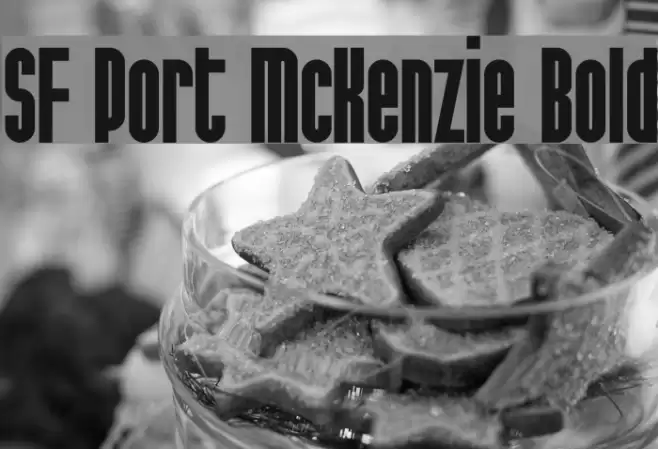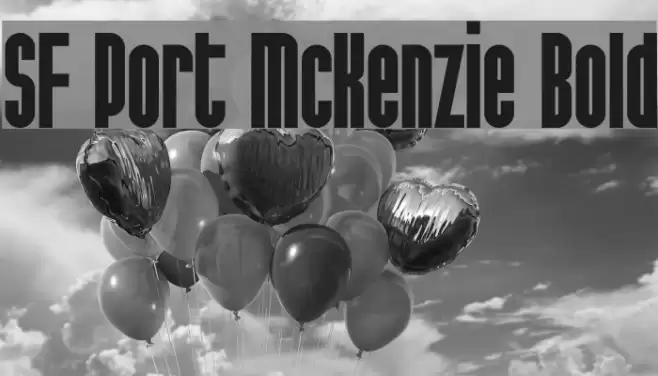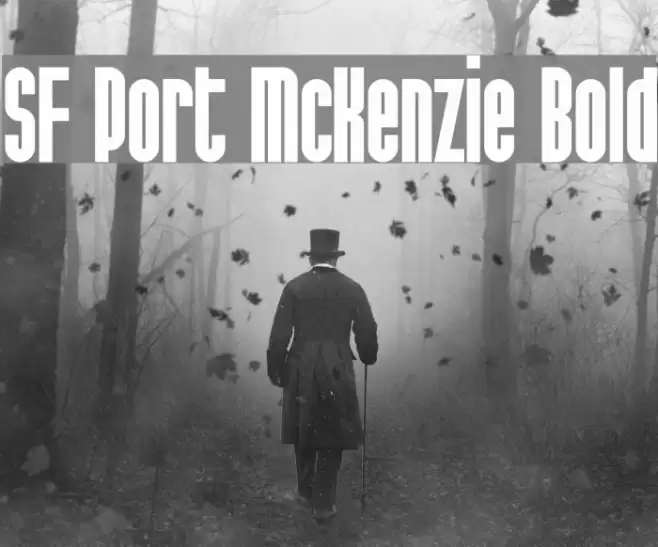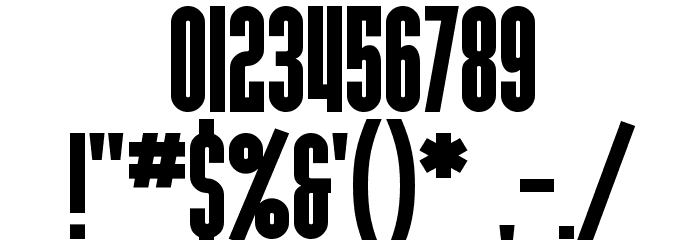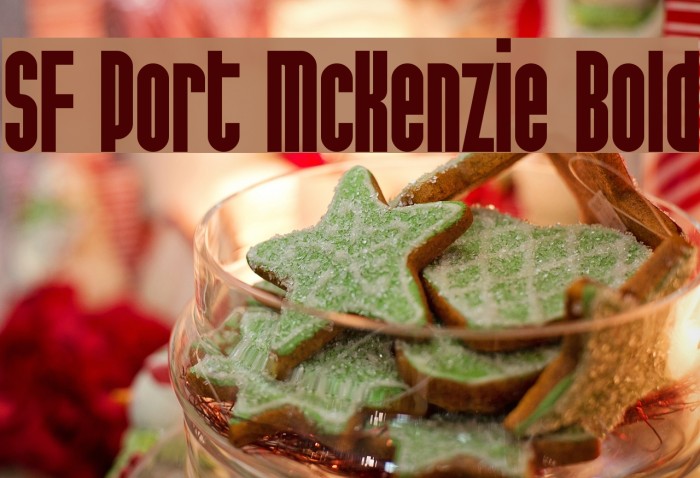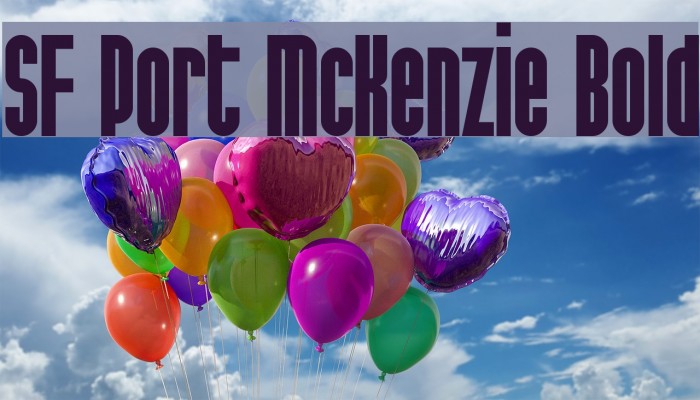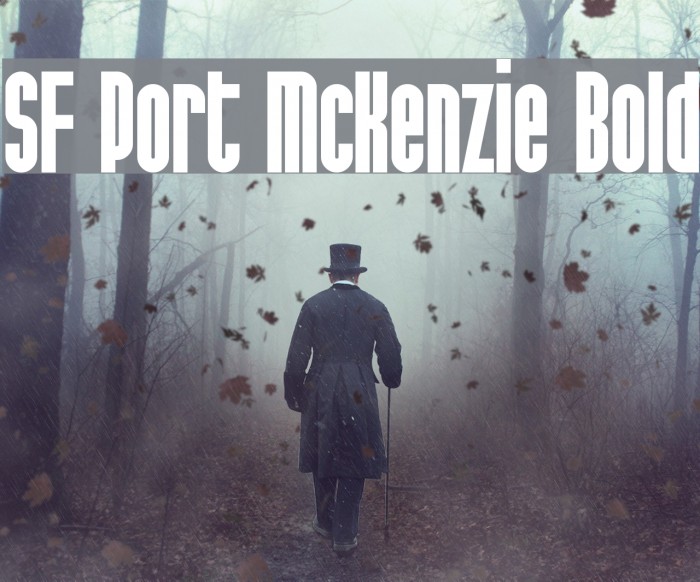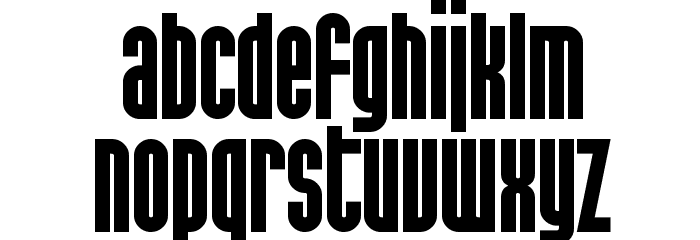
SF Port McKenzie Bold Font
SF Port McKenzie Bold Description
This font features a bold and impactful design with a strong presence. The characters are tall and narrow, creating a condensed appearance that emphasizes verticality. The strokes are thick and uniform, contributing to a high contrast look that enhances readability. The uppercase and lowercase letters maintain a consistent style, with sharp edges and a modern aesthetic. The numerals are equally bold, ensuring they stand out in any context. Special characters are included, matching the overall robust style of the font.
A bold, condensed font with high contrast and a modern, impactful style from Decorative fonts.
- Proposed Projects: Ideal for headlines, posters, and branding projects where a strong visual impact is desired.
- Character Spacing: Tight